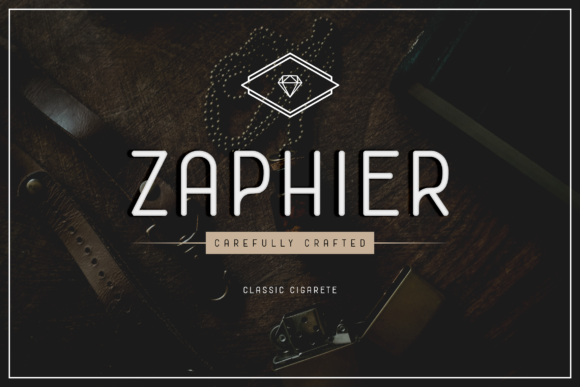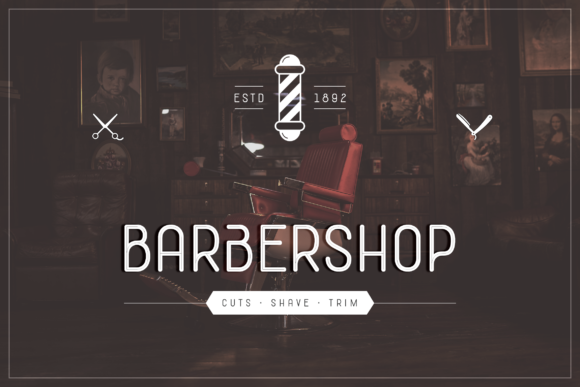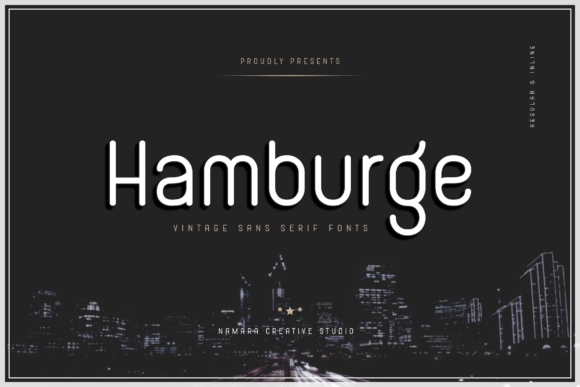
Introduction to Hamburge Font
Hamburge is a classic, clean, and versatile sans-serif font.
It is suitable for any branding, product packaging, invitation, quote, t-shirt, label, poster, logo that you wish to develop .